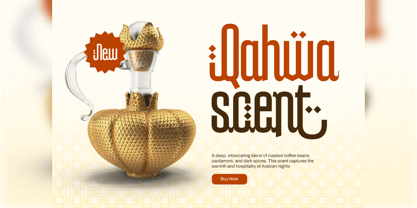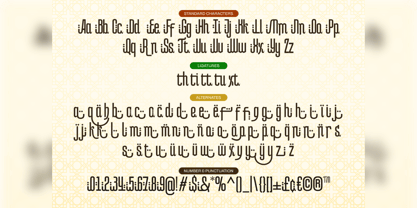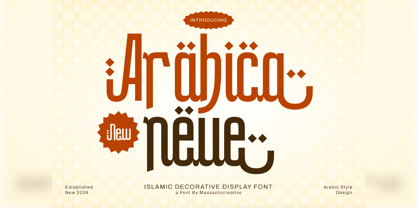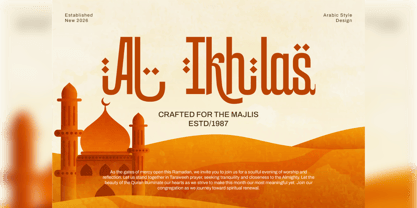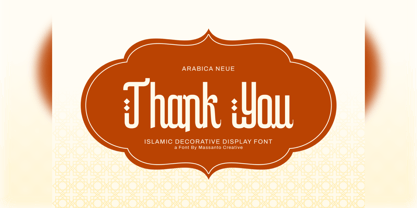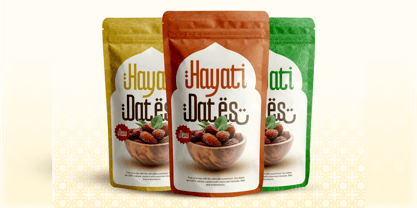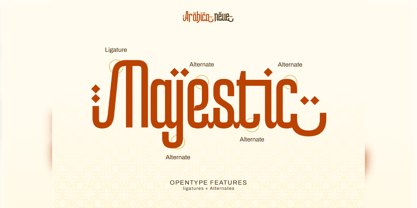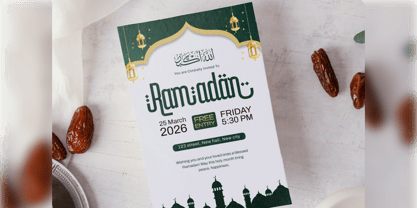
Arabicaneu
by Kangfont Studio
The Arabicaneu Font Family was designed by Sur Anto and published by Kangfont Studio. Arabicaneu contains 1 styles. More about this family
Arabica Neue is a modern decorative display font inspired by Islamic and Arabic typography, designed to bring cultural richness, elegance, and contemporary clarity into one distinctive typeface. Combining traditional Middle Eastern letterform influences with a modern visual approach, Arabica Neue delivers a strong yet refined personality suitable for expressive and meaningful designs. Featuring smooth curves, balanced proportions, and unique Arabic-inspired details, Arabica Neue feels warm, elegant, and timeless. It is carefully crafted to remain readable while still offering a decorative character, making it ideal for both bold headlines and refined branding applications. Arabica Neue shines in projects that require an Islamic, Arabian, or cultural aesthetic, from festive designs to premium product branding.
Designers: Sur Anto
Foundry: Kangfont Studio
Arabicaneu